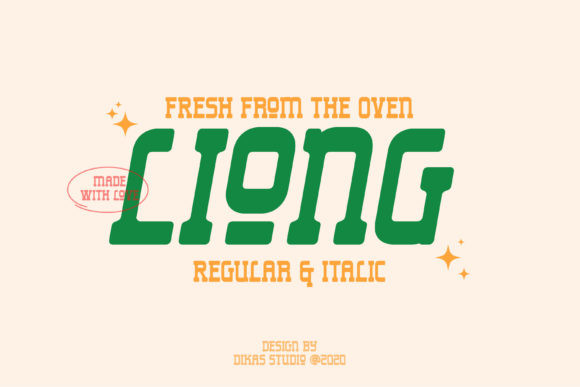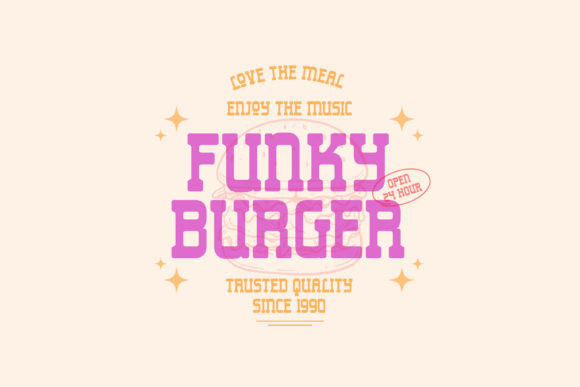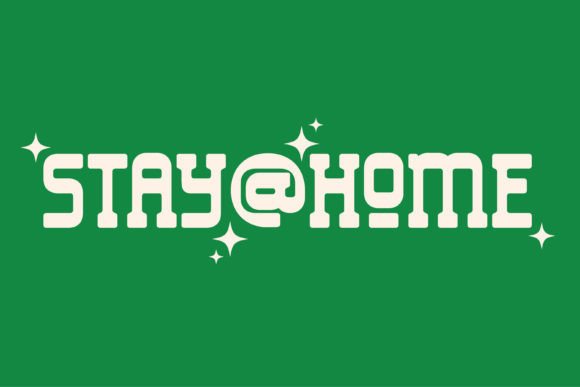
Liong Font
Liong is a bold & retro slab serif typeface. It comes packed in two styles, regular and italic and it is perfect for logos, badges, typography and any retro design.